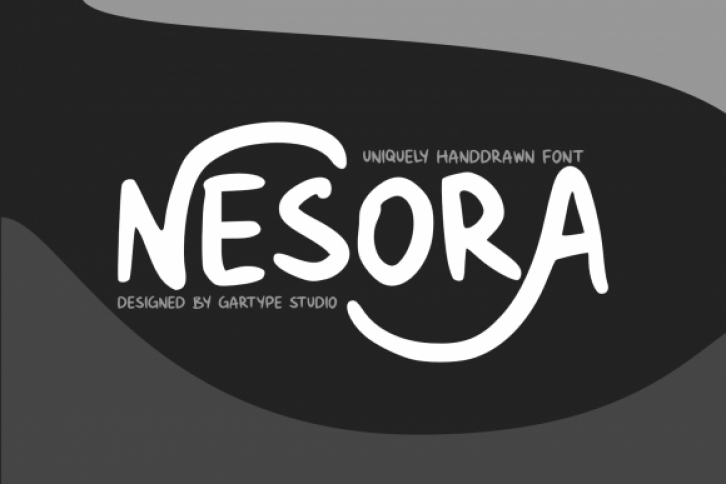
Nesora is a simple and organic display font. Simple but with a strong visual effect, this font will instantly make your creation more appealing than any others.